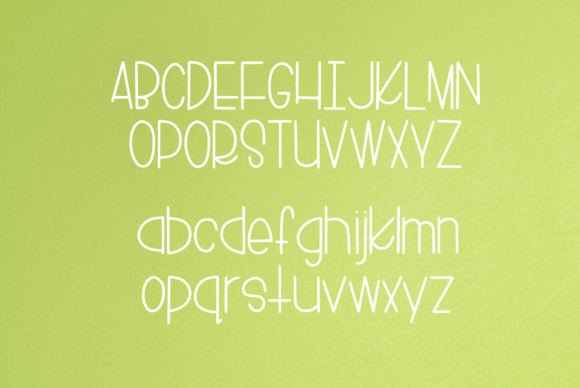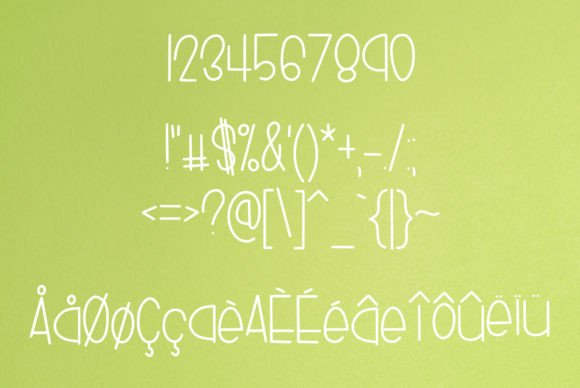
Introducing Awake Font: Adding a Playful Touch to Your Designs
In the world of typography, fonts play a crucial role in conveying the tone and personality of a design. If you’re looking for a font that can add a playful and lighthearted feel to your projects, look no further than Awake Font. This charmingly quirky font is designed to bring a touch of joy and whimsy to your designs, making it perfect for fun and modern projects.
The Characteristics of Awake Font
Awake Font is a tall and whimsical font that boasts a unique and lively personality. Its letters are carefully crafted to be playful and fun, with a touch of quirkiness that sets it apart from other fonts. The font’s tall stature gives it a sense of elegance and sophistication, while its whimsical design elements add a touch of playfulness and humor.
Perfect for Fun and Modern Projects
Awake Font is ideal for designers and crafters who want to add a little extra character to their projects. Whether you’re creating unique invitations, designing eye-catching posters, or simply adding a touch of joy to everyday designs, this font is sure to brighten up any project. Its playful and lighthearted feel makes it perfect for:
• Party invitations and event flyers
• Blog and website headers
• Branding and packaging design
• DIY crafts and scrapbooking
Why Choose Awake Font?
So why choose Awake Font over other fonts? Here are just a few reasons why this font stands out:
• Unique and playful design: Awake Font has a one-of-a-kind design that’s sure to grab attention and add a touch of personality to your projects.
• Versatile: This font can be used for a wide range of projects, from fun and playful designs to more elegant and sophisticated ones.
• Easy to read: Despite its playful design, Awake Font is easy to read and understand, making it perfect for body text and headlines.
• High-quality: This font is designed to be high-quality and crisp, ensuring that it looks great in any design.
Tips for Using Awake Font
To get the most out of Awake Font, here are a few tips to keep in mind:
• Use it sparingly: While Awake Font is playful and fun, it can be overwhelming if used too much. Use it sparingly to add a touch of personality to your designs.
• Pair it with other fonts: Awake Font pairs well with other fonts, especially serif and sans-serif fonts. Experiment with different font combinations to find the perfect look for your design.
• Experiment with colors: Awake Font looks great in a variety of colors, from bright and bold to pastel and soft. Experiment with different colors to find the perfect look for your design.
In conclusion, Awake Font is a charmingly quirky font that’s perfect for designers and crafters who want to add a playful and lighthearted feel to their projects. With its unique and playful design, versatility, and high-quality construction, this font is sure to brighten up any project. Whether you’re creating invitations, posters, or everyday designs, Awake Font is a great choice for adding a touch of joy and whimsy to your work.